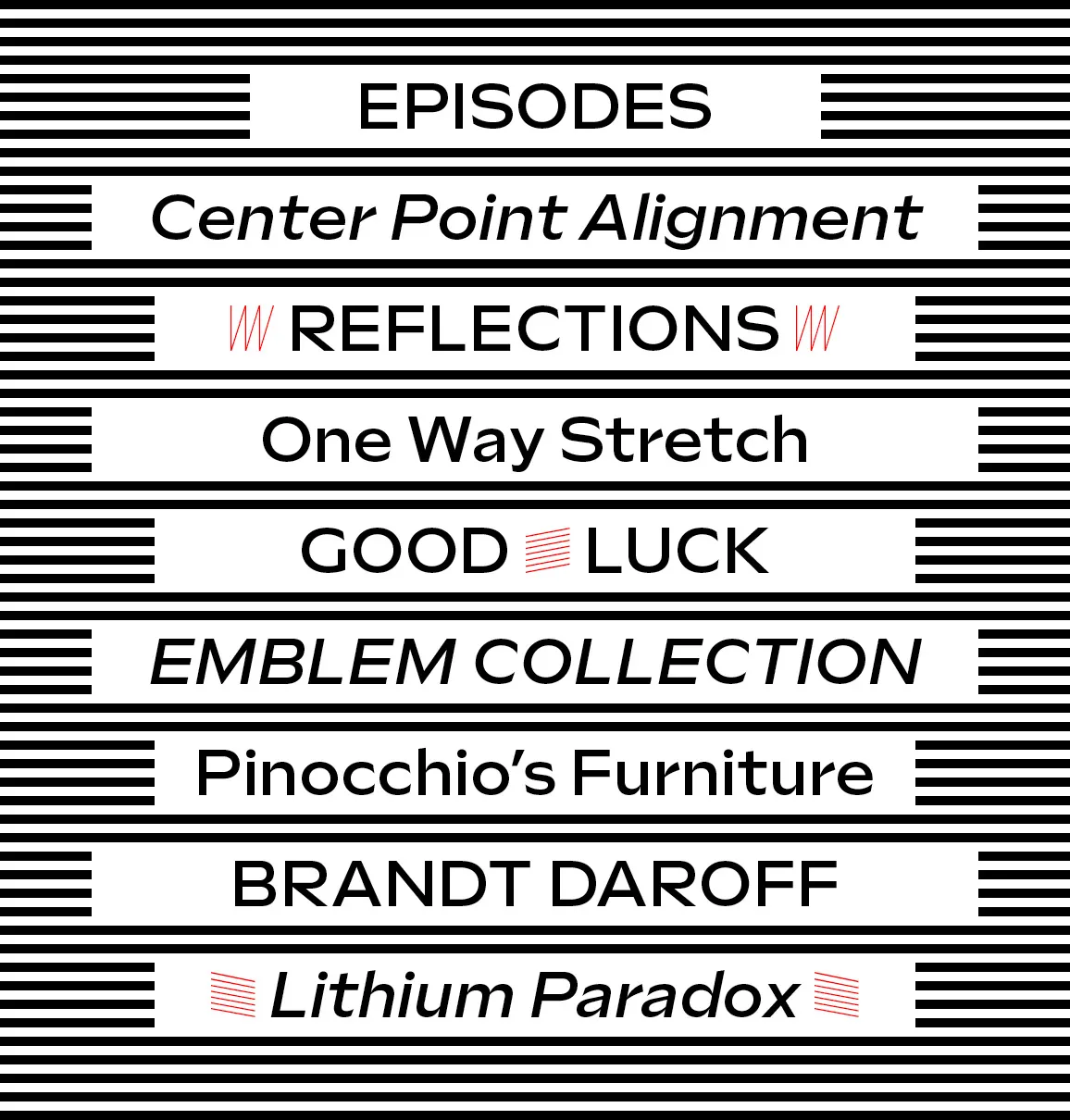
New release: Sculpin
Introducing Sculpin — a stew of American sign painting, Swiss Modernism, and the stone chisel rendered to life in Bézier curves. The family is five weights, with matching italics, and a weight-axis variable font.